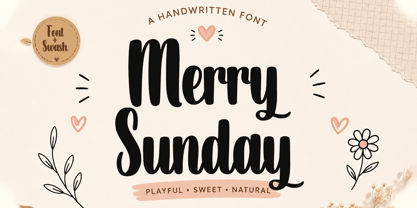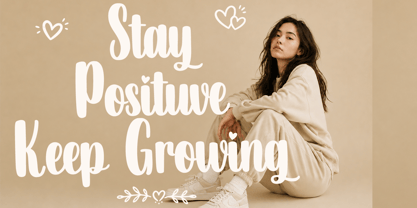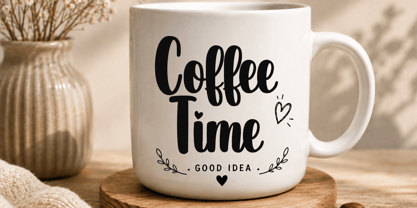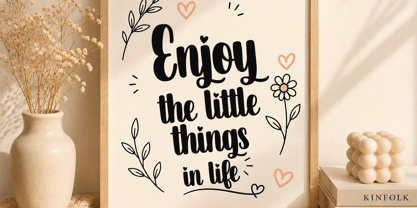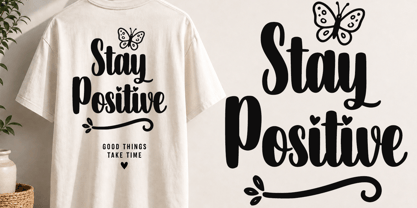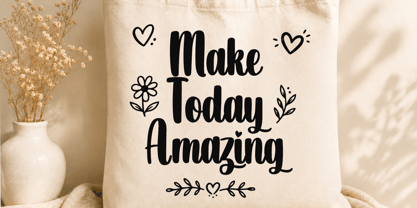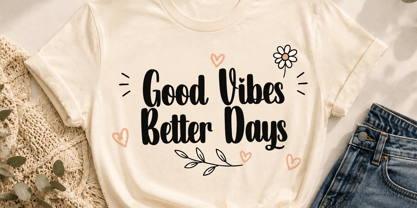
Merry Sunday
La familia tipográfica Merry Sunday fue diseñada por Muhammad Zaini y publicada por Cocodesign. Merry Sunday contiene 3 estilos y opciones de paquete familiar. Más información sobre esta familia
Merry Sunday – Handwritten Font Merry Sunday is a delightful and whimsical handwritten font characterized by bold, flowing letterforms and a natural brush-like quality. Its smooth curves and rounded shapes, combined with a lively rhythm, produce a warm and cheerful aesthetic that enhances a wide range of creative projects. This versatile font is ideal for T-shirts, apparel, greeting cards, invitations, logos, quotes, posters, packaging, stickers, social media designs, and various crafting endeavors. With its unique style and emotional appeal, Merry Sunday adds a personal touch to any design, making it a perfect choice for branding and editorial use.